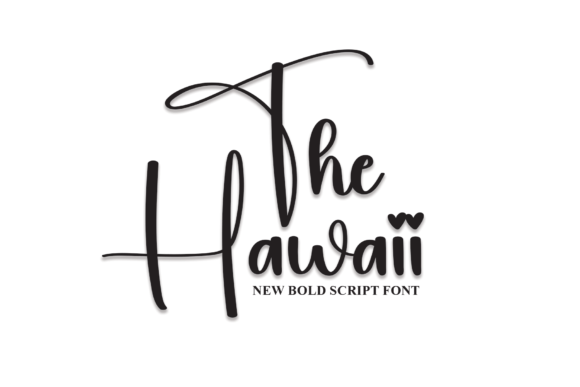
Welcome to the world of The Hawaii Font, a captivating script font that will transport you to the beauty and serenity of the Hawaiian Islands. Inspired by the lush landscapes, azure waters, and vibrant culture of Hawaii, this font exudes elegance and grace in every letterform.
Immerse yourself in the beauty of The Hawaii Font. With its delicate lines and flowing curves, this font dances across your designs like a gentle breeze, creating a visual symphony that will captivate your audience. Its unique and timeless style adds a touch of sophistication to any project, making it the perfect choice for creating stunning logos, eye-catching social media posts, elegant wedding invitations, or heartfelt personal letters.
Unleash your creativity with The Hawaii Font. Its versatility knows no bounds, making it an indispensable tool for any designer. Whether you're crafting a whimsical poster, designing a stylish website, or working on a captivating presentation, The Hawaii Font will elevate your designs to new heights. Its ability to effortlessly blend with other fonts or graphic elements makes it the perfect choice for creating harmonious and impactful designs.
With The Hawaii Font, your designs will stand out from the crowd. Its distinct and memorable character ensures that your messages will be noticed and remembered. Let your words dance across the page or screen with a font that exudes personality and charm. From professional documents to personal correspondence, The Hawaii Font adds a touch of elegance and sophistication that will leave a lasting impression.
Say goodbye to boring and mundane fonts. Embrace the beauty and allure of The Hawaii Font and see your designs come to life. Whether you're a seasoned designer or just starting out, this font is the perfect addition to your creative arsenal. Don't miss out on this opportunity to add a touch of magic to your designs. Download The Hawaii Font today and let your creativity soar!